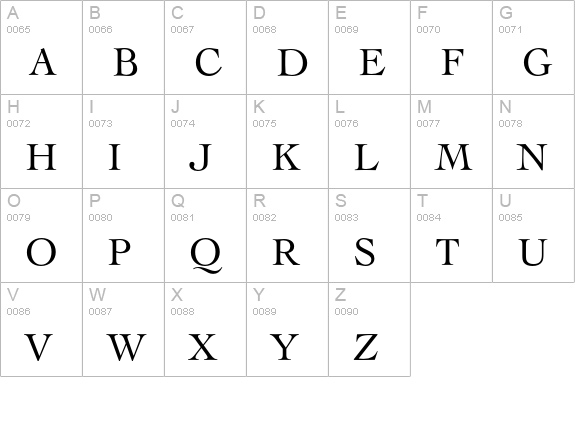
Engravers' Oldstyle 205 is a classic and timeless font that exudes elegance and sophistication. With its delicate serifs and graceful curves, this font is perfect for projects that require a touch of refinement. Whether you're designing invitations, logos, or editorial layouts, Engravers' Oldstyle 205 will add a touch of vintage charm to your work. What makes this font even more appealing is that it is available for free download at FontsMarket.com. You can easily access this beautiful typeface and elevate your designs without any cost. Embrace the timeless beauty of Engravers' Oldstyle 205 and make your projects stand out with its unique style and character.